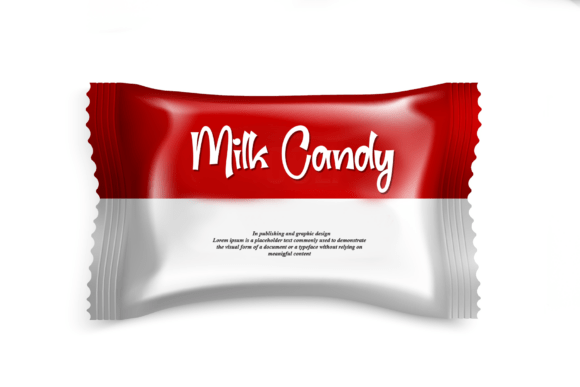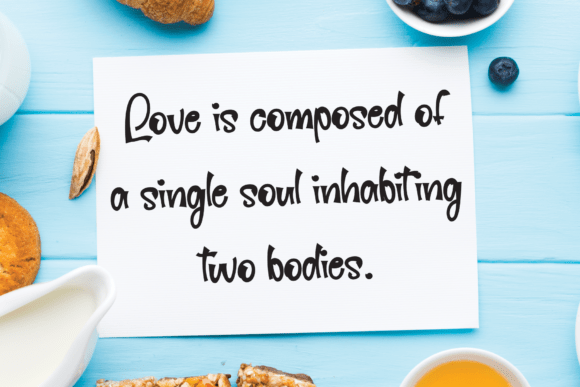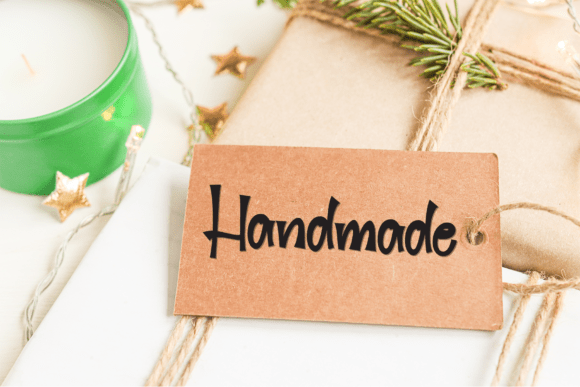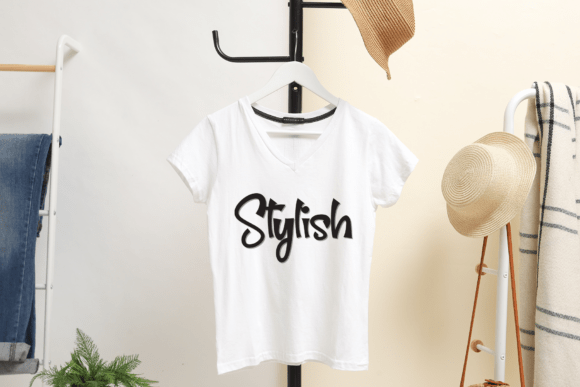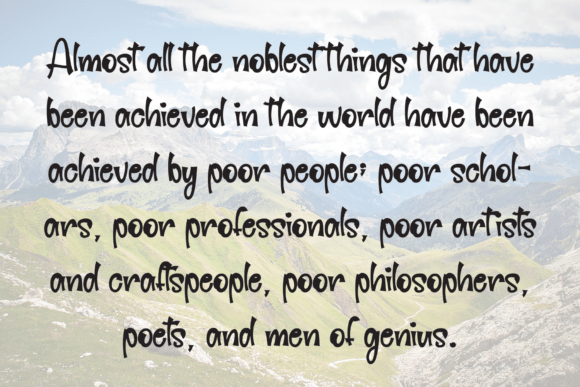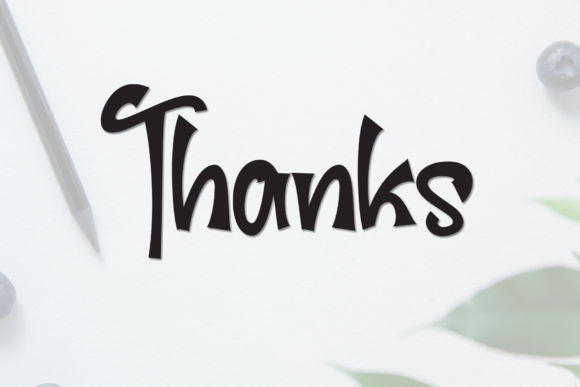
Signing Off with Style: The Background Signature Font
You’ve finally nailed the perfect shot, and you can’t wait to share it with the world. As you sit down to design the perfect caption, you’re faced with the daunting task of choosing a font that captures the essence of your brand. That’s where the Background Signature Font comes in – a modern signature font that exudes playful energy and handcrafted elegance.
Perfect for bloggers, creators, or boutique brands, this font combines professionalism with personality, giving your logo, card, or editorial design a stylish, approachable vibe. With its bouncy letterforms and pen-style curves, the Background Signature Font is a valuable addition to any designer’s toolkit, offering effortless access to all glyphs, swashes, and alternate characters thanks to its PUA-encoded status.
Background Signature Font Key Features
- Font Style: A unique, handwritten font designed for use as a background element, adding a personal touch to digital signatures.
- Unique Characteristics: The font features subtle texture and imperfections, giving it a genuine, handwritten feel that enhances the authenticity of digital signatures.
Designer Review: Background Signature Font
Overall, I found the Background Signature Font to be a decent addition to any design project. ✨ The font’s unique blend of elegance and sophistication makes it perfect for creating a memorable and professional signature. The font’s cursive nature adds a touch of personality to the design, making it stand out from more traditional fonts.
- ✨ Beautifully crafted with a clear and consistent design aesthetic
- ✨ Suitable for a wide range of applications, from business cards to letterheads
- ✨ Supports both uppercase and lowercase letters, making it easy to use
However, I did encounter a few limitations that may impact its usability. ⚠️ The font’s complexity can make it difficult to read at smaller font sizes, and its cursive nature can be a challenge to pair with other fonts. Additionally, the font may not be suitable for use in small or condensed spaces.
- ⚠️ Can be difficult to read at smaller font sizes
- ⚠️ May not be suitable for use in small or condensed spaces
- ⚠️ Can be challenging to pair with other fonts
Overall, I would recommend the Background Signature Font for designers who want to add a touch of elegance and sophistication to their designs. While it may have some limitations, its unique design and versatility make it a valuable addition to any design project.